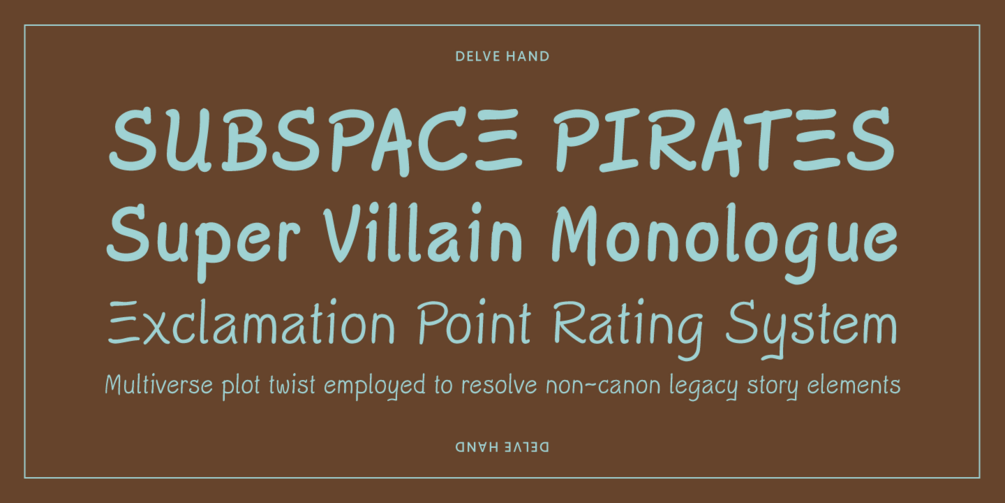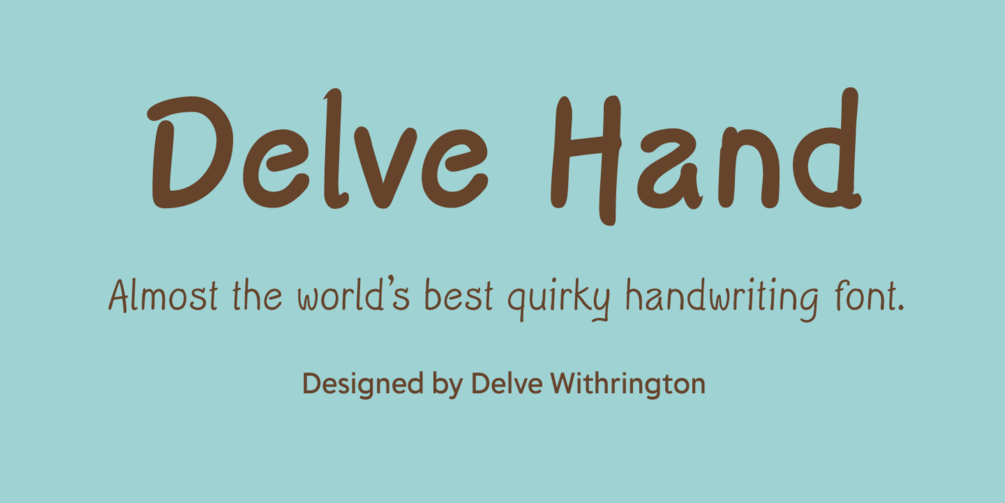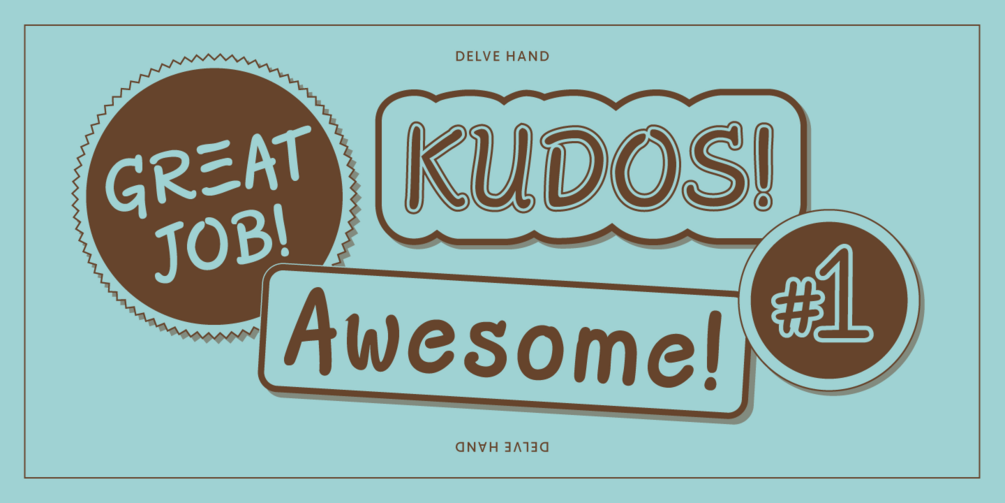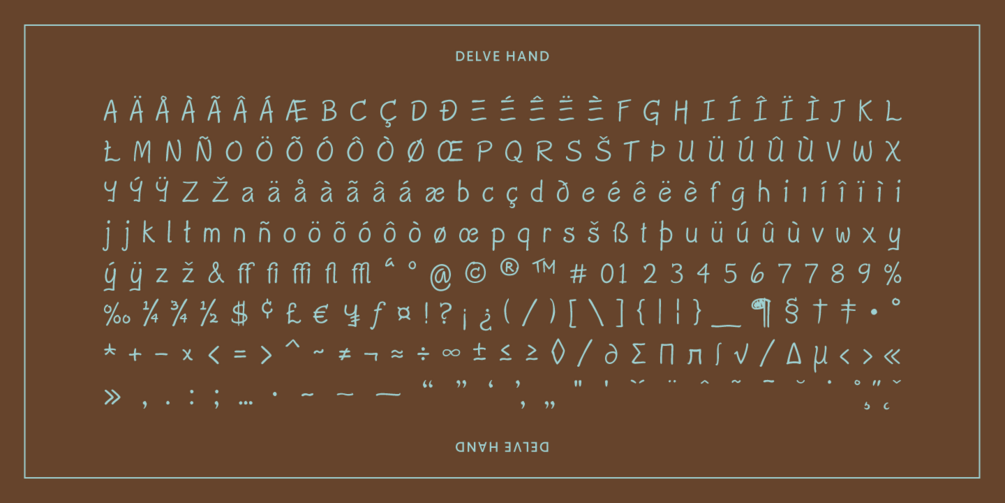
Delve Hand is a fun, informal hand­writing script designed by Delve Withrington. Some letter­forms have strokes that slightly cross over each other in places. For better readability, the spacing reaches for a more regular rhythm than hand­writing can provide, giving a more even appear­ance over­all. Delve Hand retains just enough little im­perfect­ions from the source (roller­ball pen on paper) to give a more authentic hand-written appearance without giving up any personality.
Use Delve Hand to lend a friendly, hand-written appearance in everything from toy and food packaging to comic books and greeting cards.